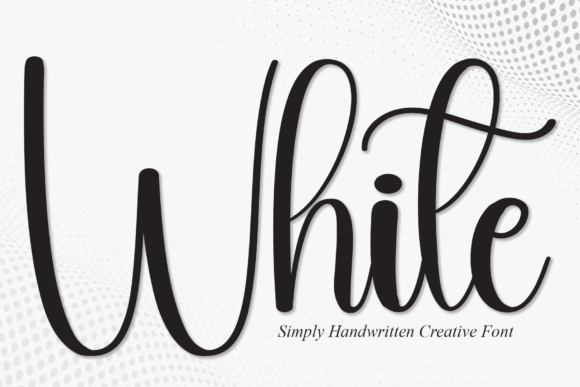
Looking for the perfect font to add a touch of playfulness to your next project? Look no further than White Font! Created by the talented William Jhordy, this script font is the best font for Christmas bags and is sure to be a hit with anyone looking to add a little fun to their designs.
With its sweet and friendly handwritten style, White Font is the perfect choice for anyone looking to create invitations, cards, or any other design that needs a touch of whimsy. Whether you're looking to create a playful holiday design or a charming wedding invitation, this font is sure to make your work stand out.